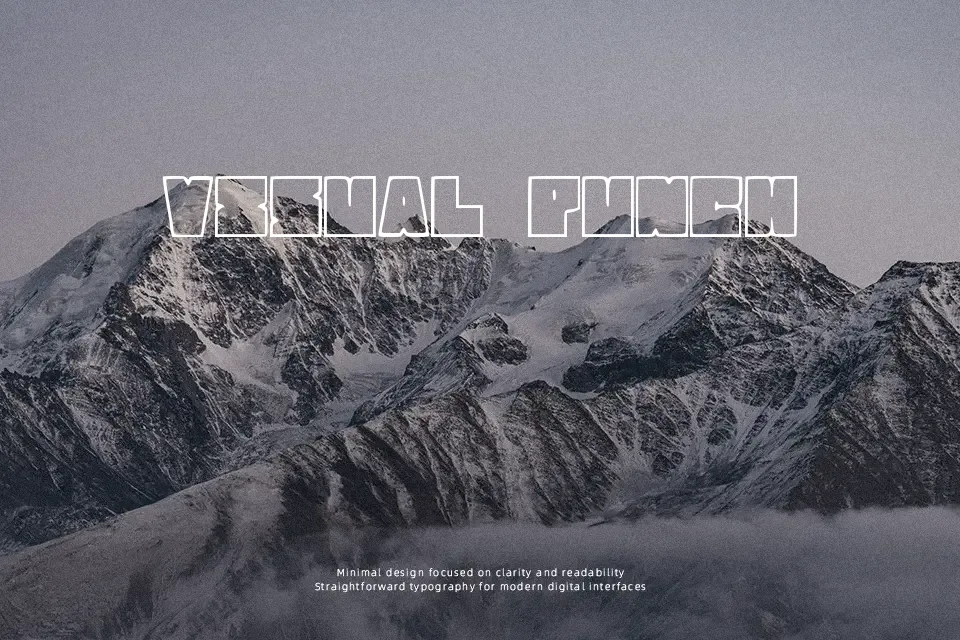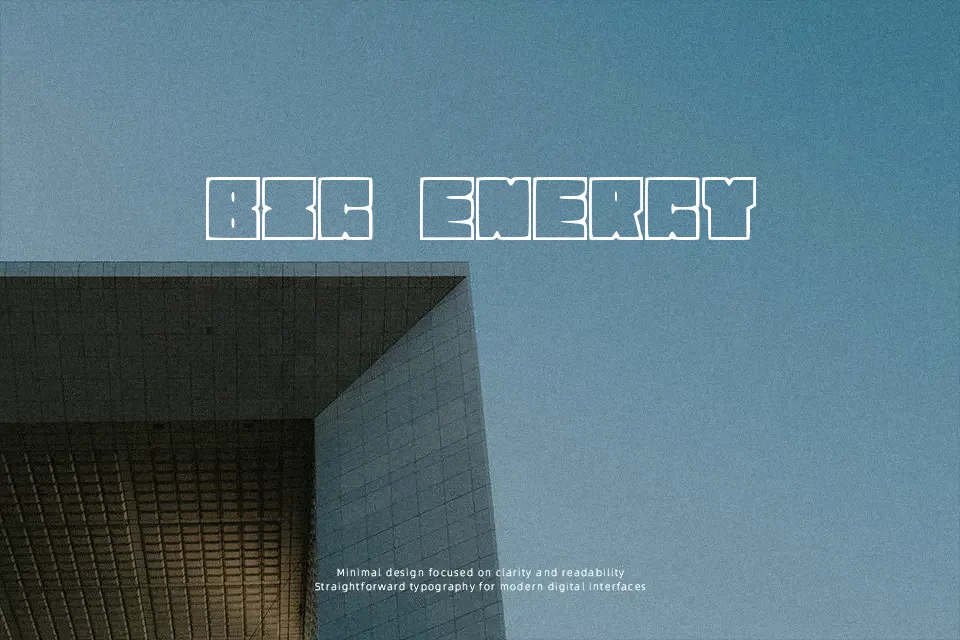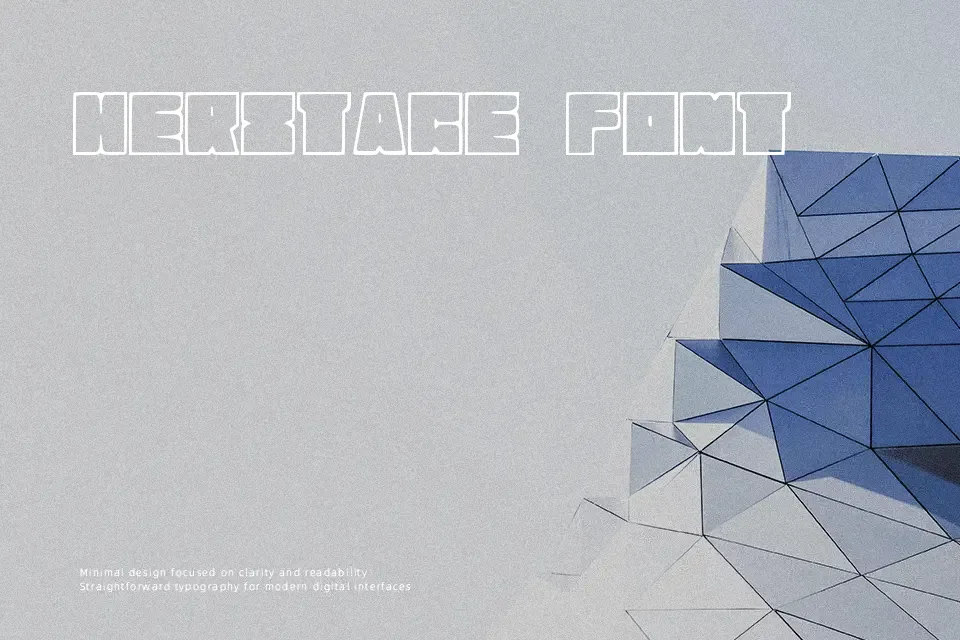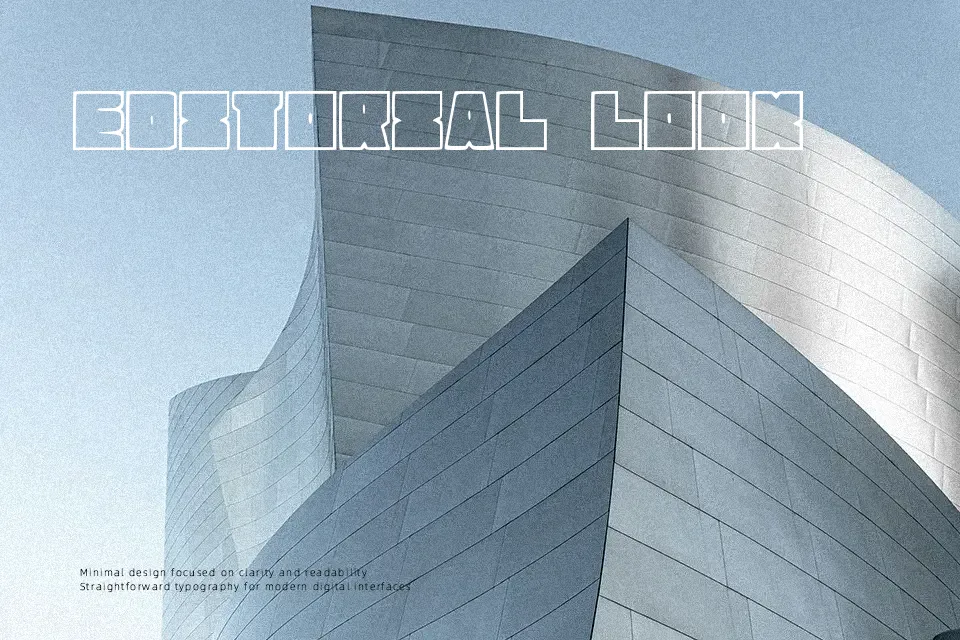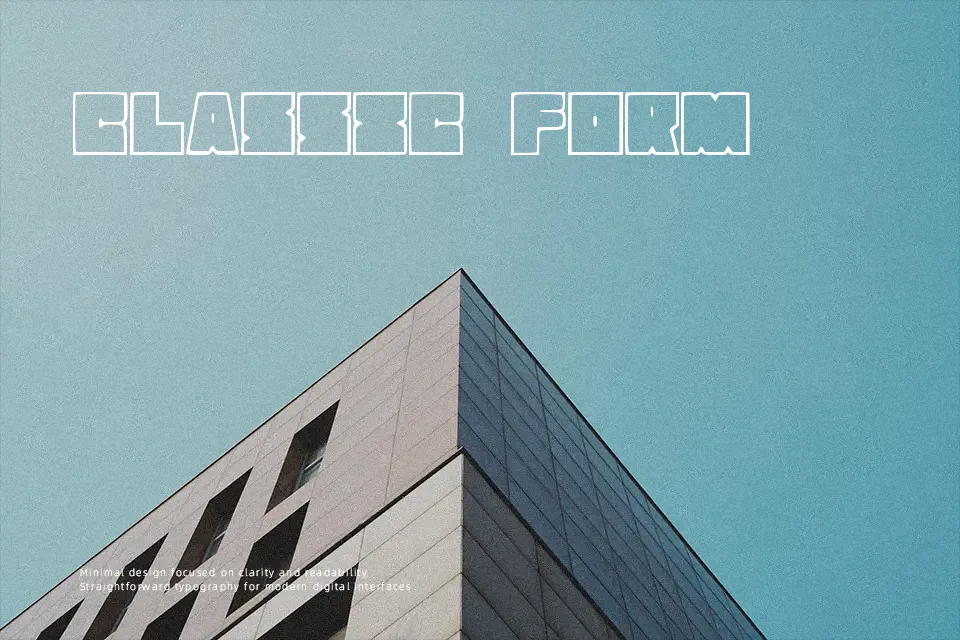
Smart Font
Defined by relaxed hand-drawn geometry, Smart Font presents uneven stroke weights, rounded terminals, and asymmetrical character outlines that evoke a lively comic strip aesthetic. The letterforms display moderate width variation alongside open spacing, giving individual glyphs adequate breathing room across brief display settings. While the design delivers immediate personality in video game interfaces, casual event posters, and toy branding, the idiosyncratic curves reduce reading comfort when applied to extended paragraphs. In practical evaluation, bold outlines maintain distinct legibility at medium sizes, but tight multiline arrangements can feel visually cluttered without expanded line spacing.
Best For: children book covers, comic strip lettering, casual poster headlines, toy packaging
Not Ideal For: long paragraph text, formal corporate reports, dense editorial layouts, small interface labels
Perfect for headline, kids, and packaging, with a creative and cartoon style.